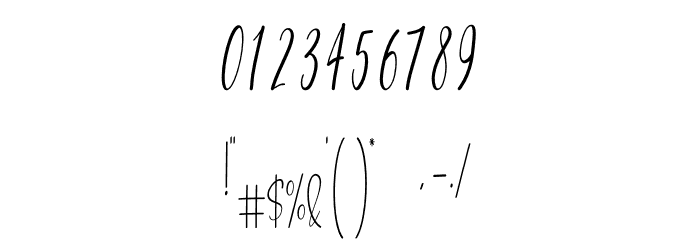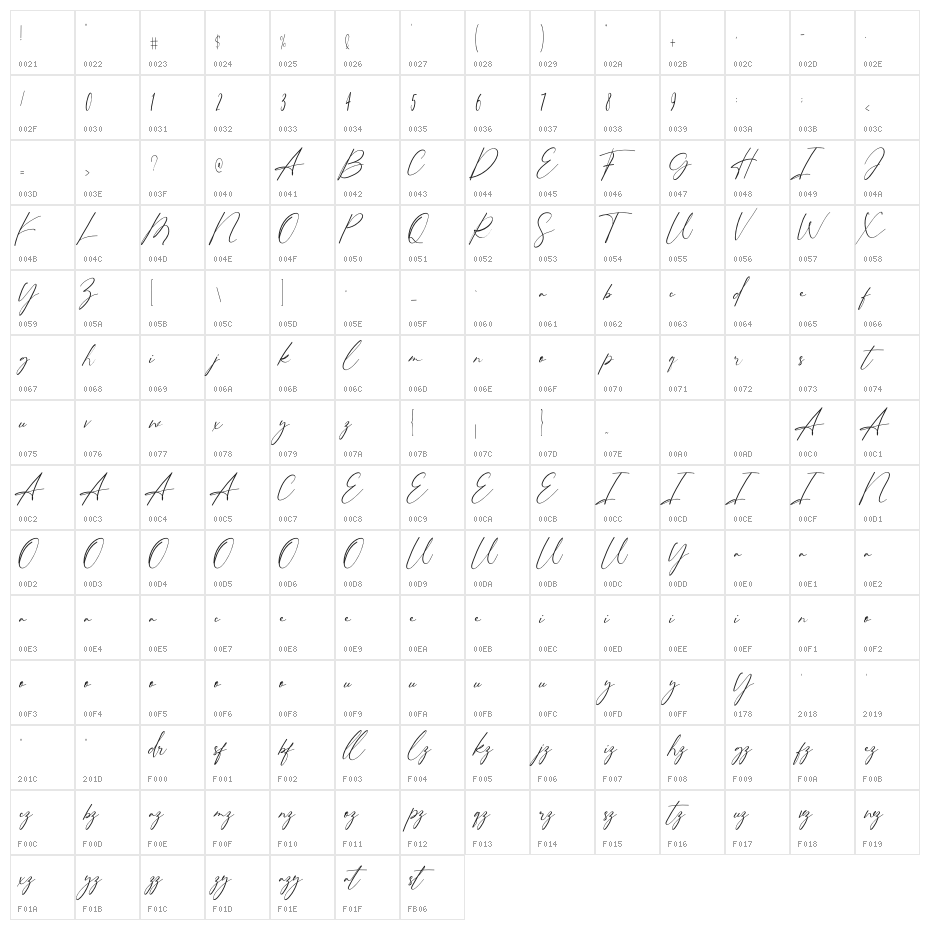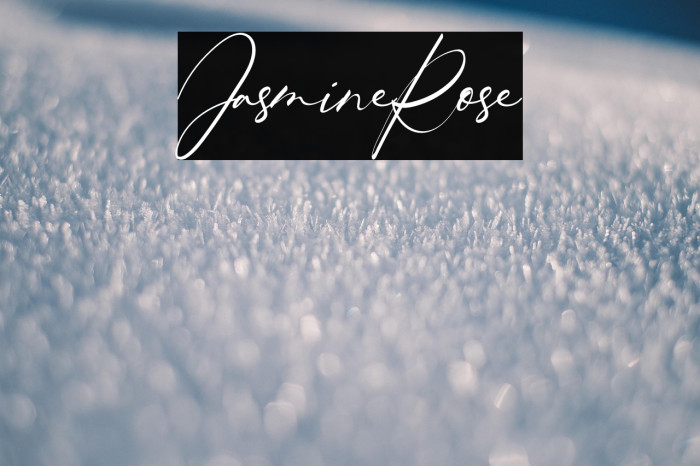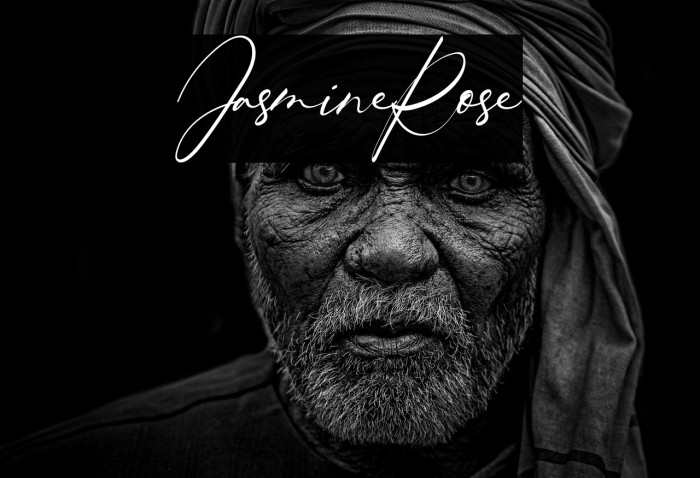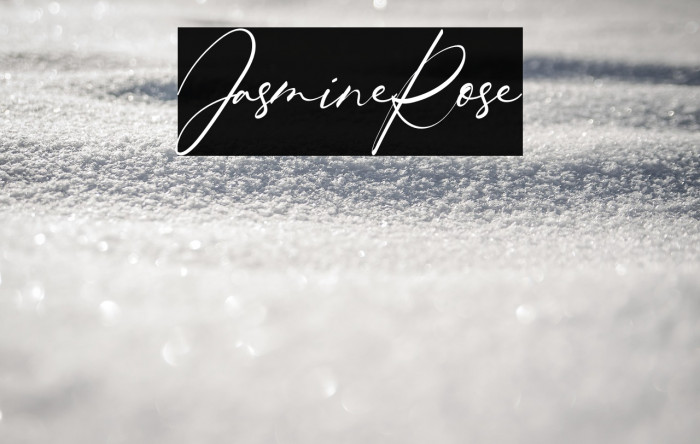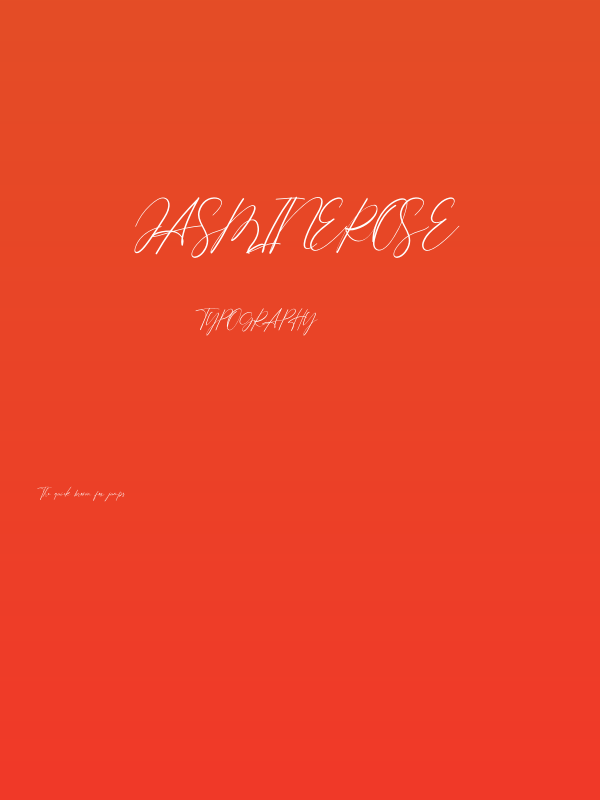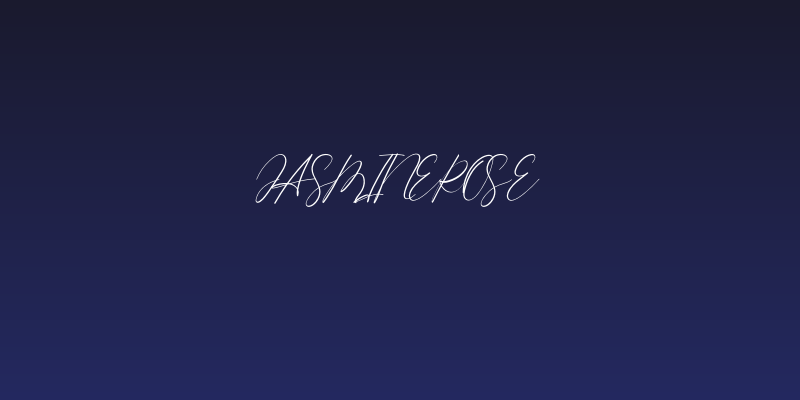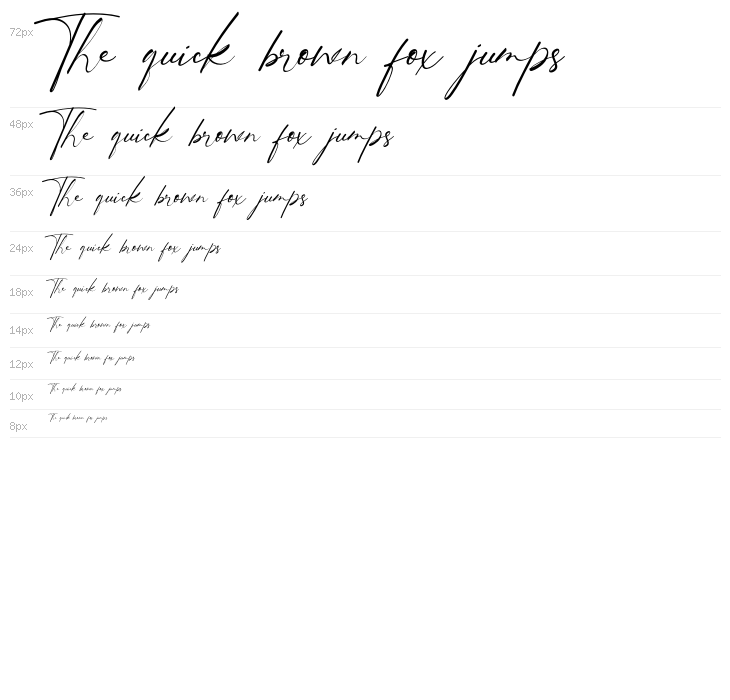
JasmineRose Font
JasmineRose Description
This elegant script font exudes a sense of fluidity and grace, characterized by its sweeping, cursive strokes and delicate lines. Each letter is crafted with a sense of movement, creating a harmonious flow that is both sophisticated and artistic. The uppercase letters are bold and expressive, while the lowercase letters maintain a refined and delicate appearance. The numerals and special characters complement the overall style, maintaining the same fluidity and elegance. This font is perfect for projects that require a touch of sophistication and artistic flair.
| Overall Style | Elegant, Artistic |
| Proposed Projects | Ideal for wedding invitations, elegant branding, artistic posters, and personal stationery. |